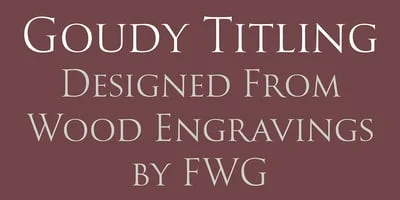
Goudy Titling Font
Goudy Titling Font is ideal for book titles, classical publication headers, elegant certificates, formal invitations, academic diplomas, historical documentaries, museum exhibition labels, traditional wedding announcements, prestigious award certificates, and scholarly journal mastheads. This distinguished serif typeface creates timeless authority in both traditional print and contemporary digital applications.
What makes Goudy Titling Font exciting is its masterful embodiment of classical typography principles with impeccable craftsmanship and historical authenticity. The font features beautifully proportioned capital letters with refined serif details and elegant stroke variations that reflect centuries of typographic excellence. Its distinguished character design establishes an atmosphere of scholarly authority and cultural sophistication that commands respect.
Goudy Titling Font family includes refined styles: Regular, Medium, Bold, Condensed, and Extended versions, each maintaining classical proportions and traditional elegance. Each variant preserves the font's historical integrity while providing designers with versatile options for creating sophisticated heading systems and prestigious document layouts.
This prestigious classical typeface brings unmatched elegance to projects requiring authoritative presentation. Whether you're designing academic publications, cultural materials, or formal documentation, Goudy Titling Font delivers exceptional sophistication and scholarly credibility. The font's classical proportions and refined details ensure memorable impact across various prestigious applications.